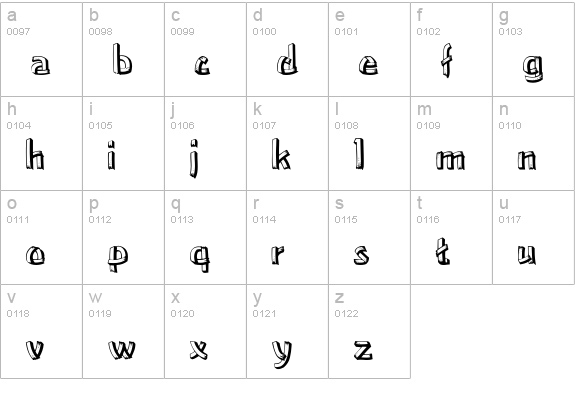
RSLowerEastSide Font Details
RSLowerEastSide is a modern and stylish font that exudes a cool and urban vibe. With its sleek lines and contemporary design, this font is perfect for adding a touch of edginess to your projects. Whether you're working on a poster, logo, or branding materials, RSLowerEastSide will make your text stand out and grab attention. The best part? RSLowerEastSide is available for free download at FontsMarket.com. That's right, you can easily access this unique font and start using it in your designs without any cost. Don't miss out on the opportunity to elevate your creative projects with RSLowerEastSide - download it now and let your creativity shine!